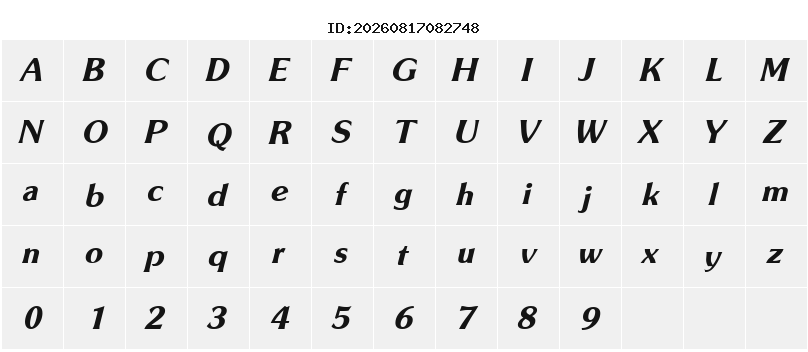
• Font Name: Souvenir Gothic CG
• Font Style: Demi Italic
• Full Font Name: Souvenir Gothic CG Demi Italic
Souvenir Gothic CG.ttf is a modern, elegant sans-serif font designed for ultimate readability and visual harmony. Perfect for branding, headlines, web design, and print materials.